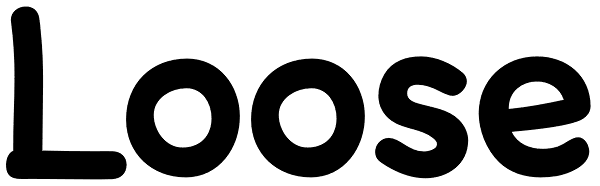
Loose
Loose is a hand-drawn font with a slightly sloppy yet relaxed look. All glyphs have been handcrafted by illustrative designer Zeptonn. It contains lots of Open Type goodness to ensure you'll be able to give your entire text that random and...